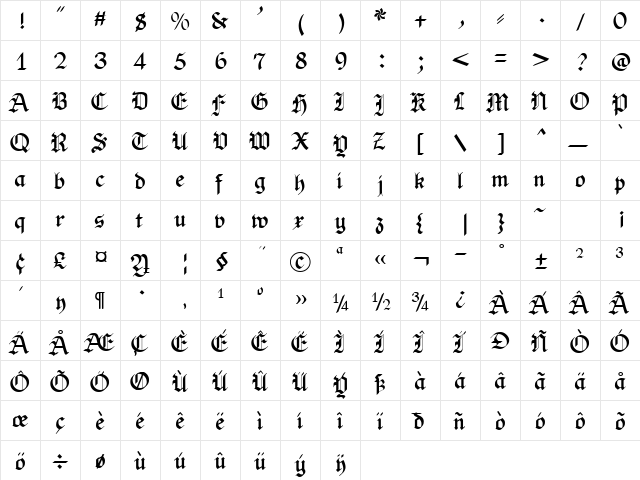
OldHaroldRee Bold
Design Context for OldHaroldRee Typeface
OldHaroldRee takes a measured approach to typography — its balanced proportions and neutral character make it a reliable workhorse for both digital and print work. The heavy weight commands attention and anchors typographic hierarchies.